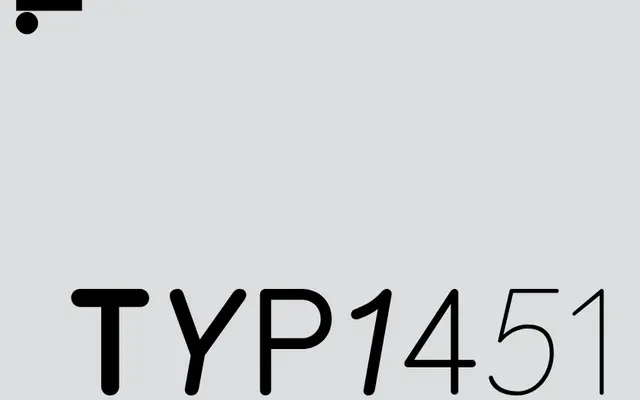
LL Typ 1451
Lineto · Nico Schweizer, Maurice Göldner · 1998
A digitisation of a DIN-standard plastic drawing template that Nico Schweizer used as a child, revised and extended with italics in 2019 alongside Maurice Göldner.
Originally released in 1998 as four weights traced from a numbered plastic lettering stencil, the family was substantially reworked in 2019 into ten cuts spanning five weights with matching italics. The revision, carried out with Maurice Göldner, redrew the regular styles to meet contemporary screen standards while preserving the constructed, single-stroke character of the source template. The DIN reference number on the original stencil gives the typeface its name.
Derived from a DIN-standard plastic drawing template, the letterforms carry the constructed, single-stroke character of technical stencil lettering rather than a conventional grotesque or geometric tradition.